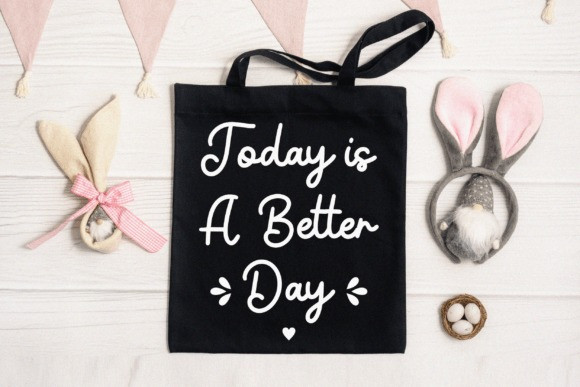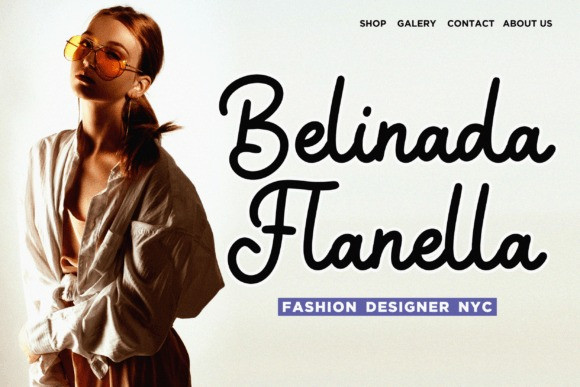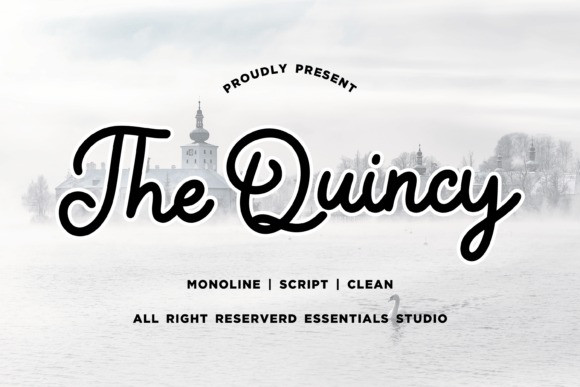
The Quincy Font
The Quincy Handwritten Font is a clean monoline script font. The Quincy is perfect for product packaging, branding project, magazine, social media, wedding, or just used to express words above the background.